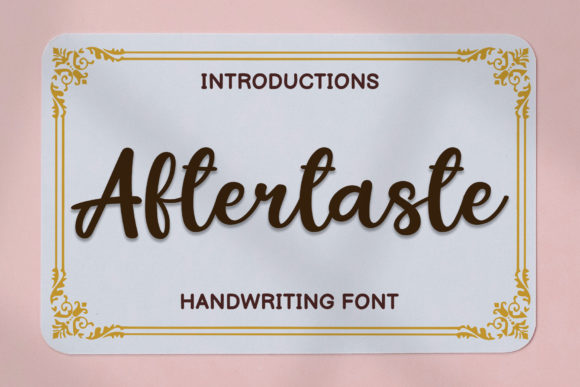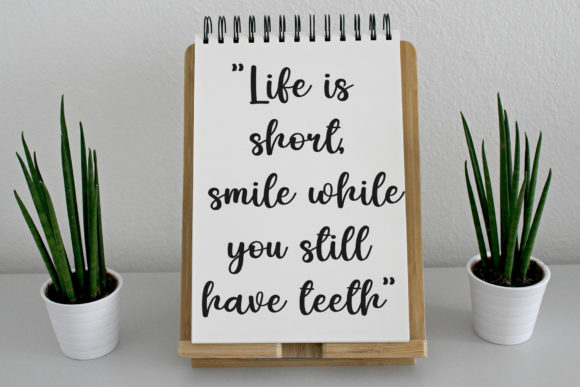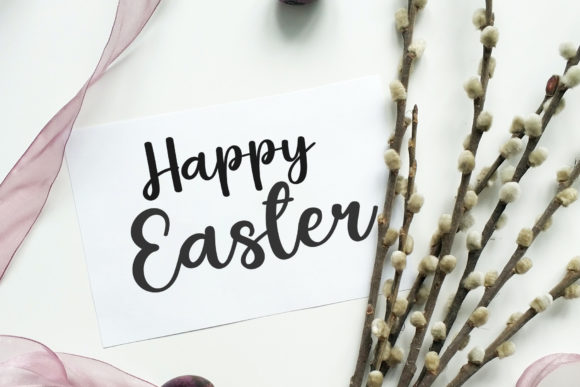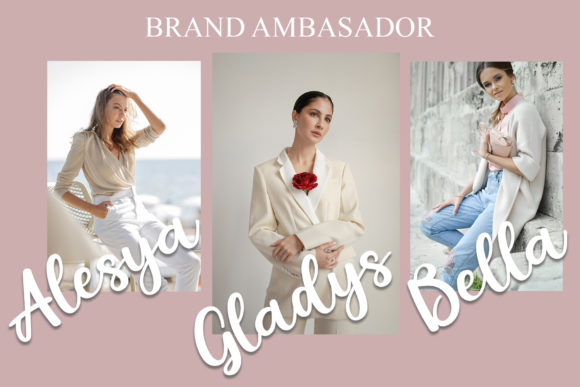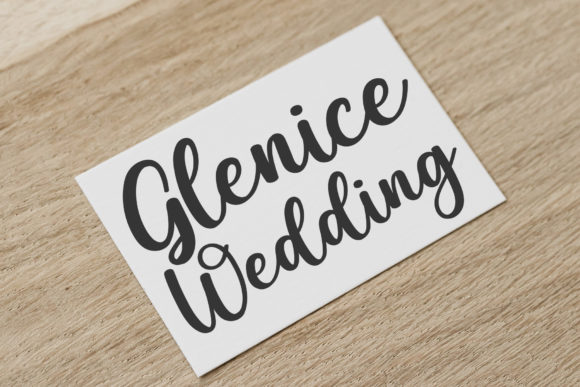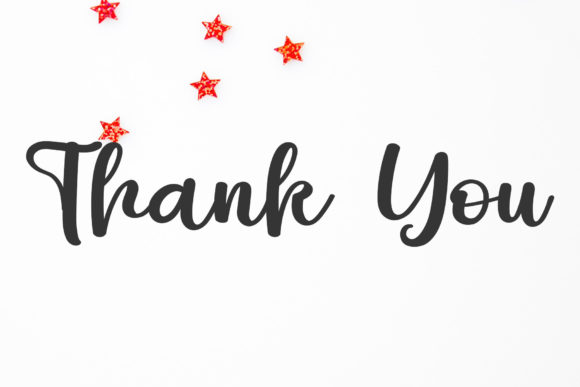
Aftertaste Font
About Aftertaste Font
Aftertaste is a distinctive and graceful script font that captivates with its ravishing style. It offers a unique and elegant aesthetic, making it an ideal choice for creating gorgeous and eye-catching designs. With its PUA encoding, accessing all the glyphs and swashes is a seamless experience, providing designers with the flexibility to customize and enhance their projects effortlessly.
The font’s distinctiveness lies in its graceful script, which adds a touch of sophistication to various design applications. Whether used for logos, branding, invitations, stationery, or other creative projects, Aftertaste brings a refined and stylish quality to the forefront.
Fall in love with Aftertaste for its ability to convey elegance and charm, making it well-suited for creating beautiful wedding invitations, stationary art, engaging social media posts, and more. The ravishing style of Aftertaste ensures that your designs stand out with a timeless and appealing visual impact.
The inclusion of PUA encoding is a notable feature, allowing designers to access a wide range of glyphs and swashes effortlessly. This feature enhances the font’s versatility, offering creative freedom to explore various character combinations and flourishes.
In summary, Aftertaste is not just a font; it’s a distinct and graceful design tool that adds a layer of elegance to your creative work. With its PUA encoding, designers can easily unlock the full potential of its glyphs and swashes, making it a user-friendly and stylish choice for creating stunning and sophisticated designs.